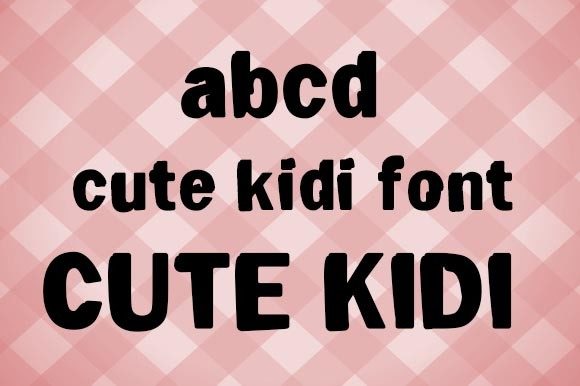
Introduction to Cute Kidi Font
Cute Kidi is a fun and friendly display font.
Whether you are using it for cartoon-related designs, children games, quotes, titles, brand names, book covers, posters, or just any creation that requires a touch of beauty, this font is a great choice .
Key Features of Cute Kidi Font
Why Choose Cute Kidi Font?
Cute Kidi Font offers exceptional quality and versatility, making it a valuable addition to your design toolkit. Whether you’re creating for personal projects or commercial use, Cute Kidi Font delivers professional results.